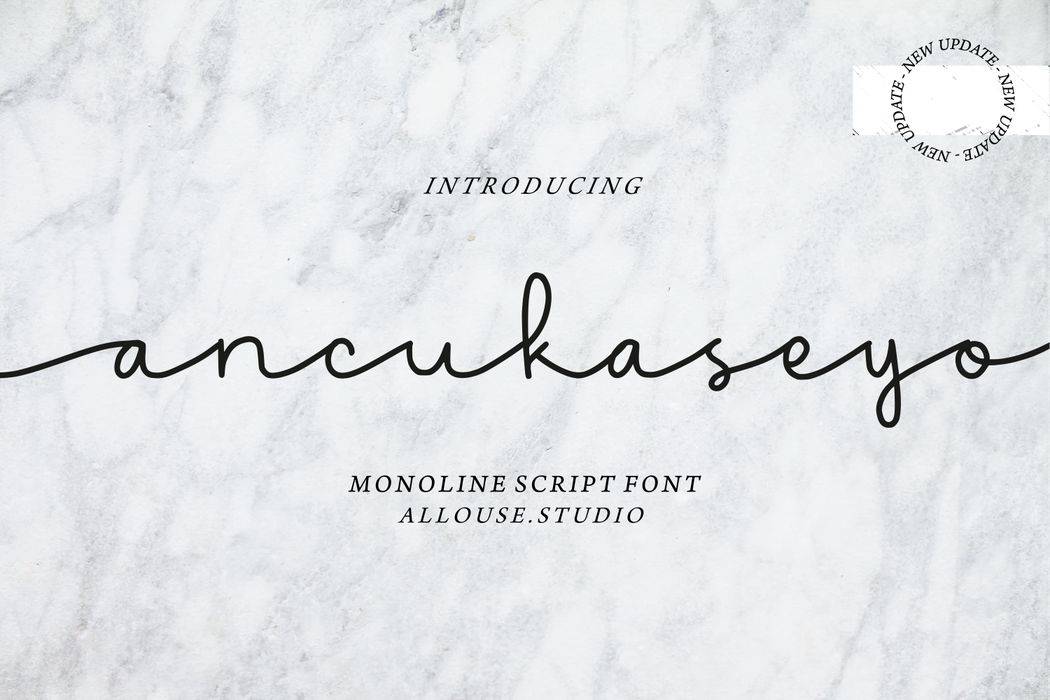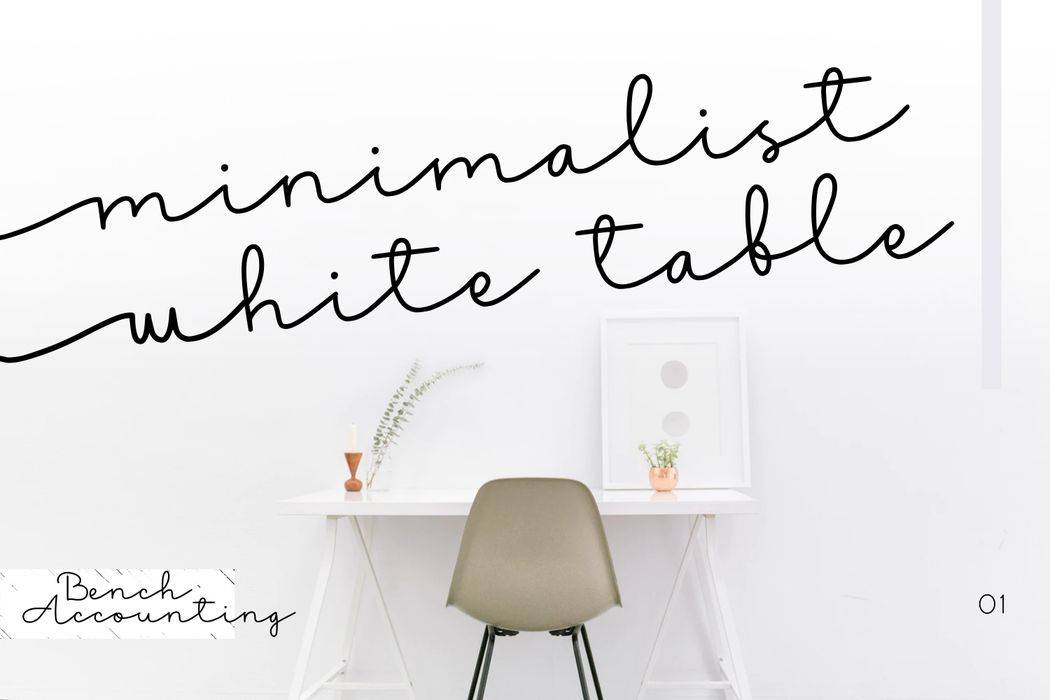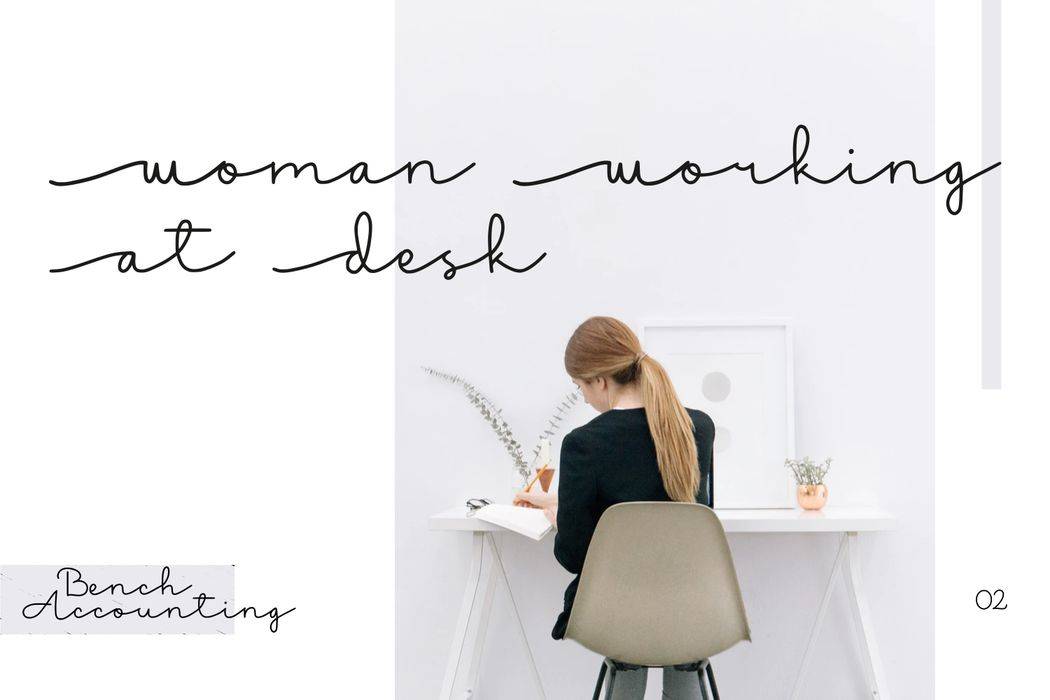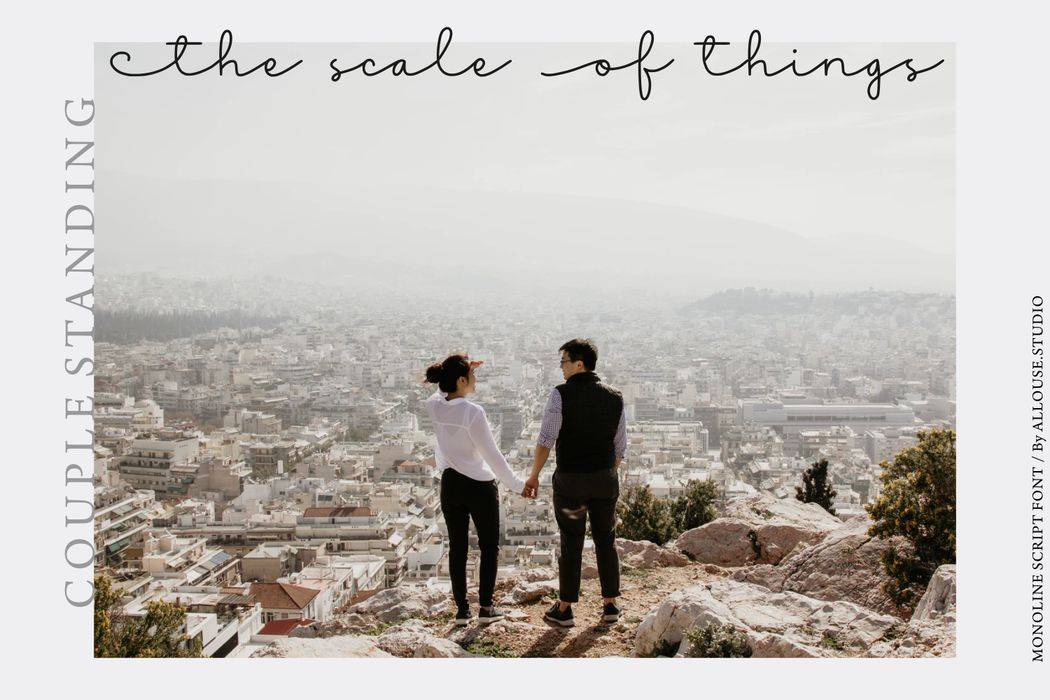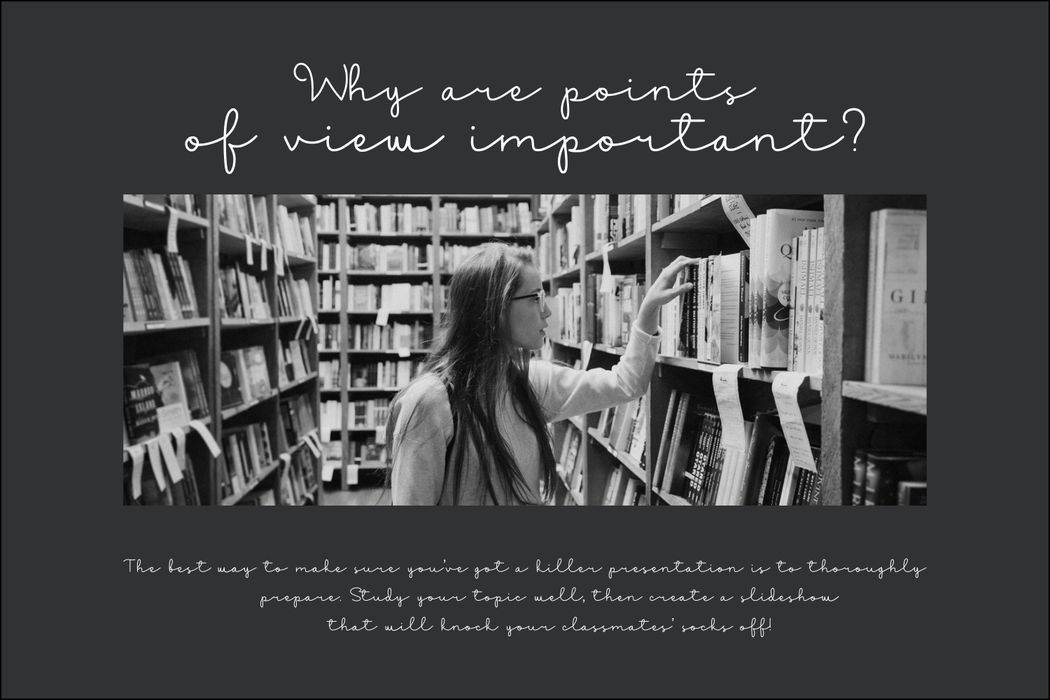
Ancukaseyo is a delicate, hand-drawn script font with slender, flowing strokes that create an elegant yet casual feel. Its tall x-height and airy letter spacing enhance readability, making it perfect for stylish branding, invitations, and editorial accents where a personal, sophisticated touch is desired. This font’s graceful curves and refined details convey a modern, approachable elegance suitable for creative and feminine designs.
Ancukaseyo Font
About Ancukaseyo Font
| Font family | Ancukaseyo Font |